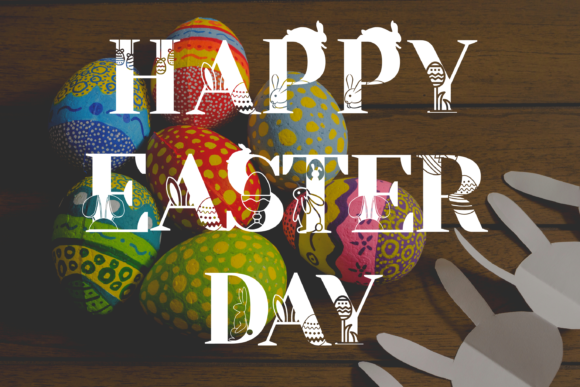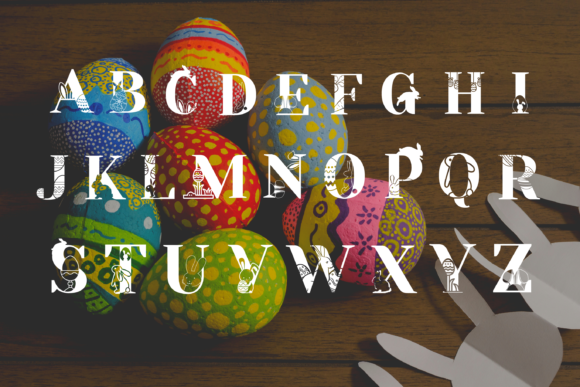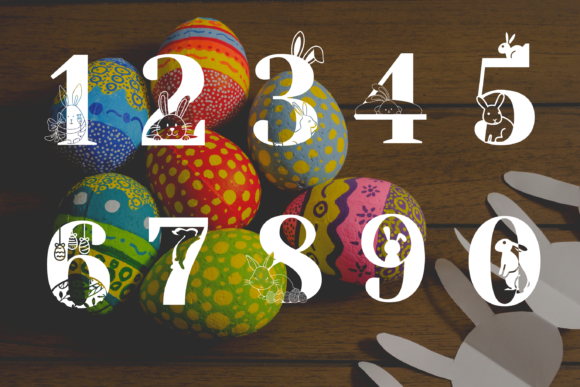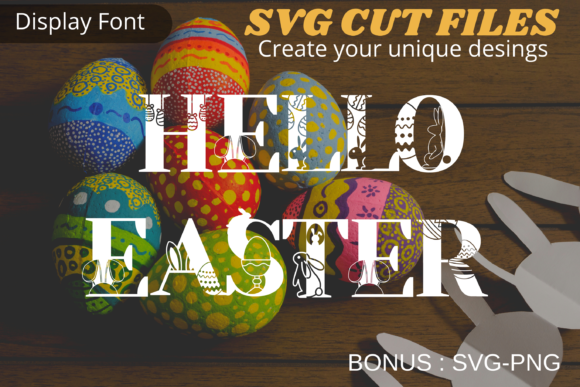
Hop into Creativity with Hello Easter Font
Are you looking for a fun and festive font to add a touch of Easter cheer to your designs? Look no further than the Hello Easter Font! This cool, useful, and unique decorative font is perfect for a variety of projects, from blog posts and logos to invitations and decorations. In this article, we’ll dive into the world of Hello Easter Font and explore its many uses and benefits.
A Font for Every Project
Hello Easter Font is a versatile font that can be used for a wide range of projects. Whether you’re a designer, crafter, or DIY enthusiast, this font is sure to bring a smile to your face and a touch of Easter magic to your creations. Here are just a few ideas to get you started:
- Blog Posts: Add a playful touch to your Easter-themed blog posts with Hello Easter Font. Use it for headings, titles, and even pull quotes to create a fun and festive atmosphere.
- Logos and Branding: Create a unique and eye-catching logo for your Easter-themed business or product with Hello Easter Font. This font is sure to stand out and leave a lasting impression on your customers.
- Ads and Invitations: Make your Easter ads and invitations pop with Hello Easter Font. This font is perfect for creating eye-catching headlines and titles that will grab attention and entice readers.
- Greeting Cards and Planners: Add a personal touch to your Easter greeting cards and planners with Hello Easter Font. This font is perfect for creating custom titles, headings, and decorations.
- Photo Albums and Decorations: Use Hello Easter Font to add a touch of Easter cheer to your photo albums and decorations. This font is perfect for creating custom titles, captions, and decorations that will make your projects stand out.
Why Choose Hello Easter Font?
So why choose Hello Easter Font for your next project? Here are just a few reasons why this font stands out:
- Unique and Playful Design: Hello Easter Font features a unique and playful design that’s sure to add a touch of Easter cheer to your projects.
- Versatile: Hello Easter Font can be used for a wide range of projects, from digital designs to print projects.
- High-Quality: This font is high-quality and features a clean, crisp design that’s perfect for both personal and professional use.
Tips for Using Hello Easter Font
Here are a few tips for using Hello Easter Font in your next project:
- Experiment with Different Sizes and Colors: Don’t be afraid to experiment with different sizes and colors to find the perfect look for your project.
- Pair with Other Fonts: Hello Easter Font pairs well with other fonts, so don’t be afraid to try pairing it with a serif or sans-serif font for a unique look.
- Use for Headings and Titles: This font is perfect for headings and titles, so be sure to use it to create eye-catching text that grabs attention.
| Font Name | Hello Easter Font |
| Author | Cnxsvg |
Hello Easter Font is a cool, useful, and unique decorative font that’s perfect for a variety of Easter-themed projects. With its playful design, ease of use, and versatility, this font is sure to become a favorite among designers, crafters, and DIY enthusiasts. So why wait? Download Hello Easter Font today and start adding a touch of Easter cheer to your designs!